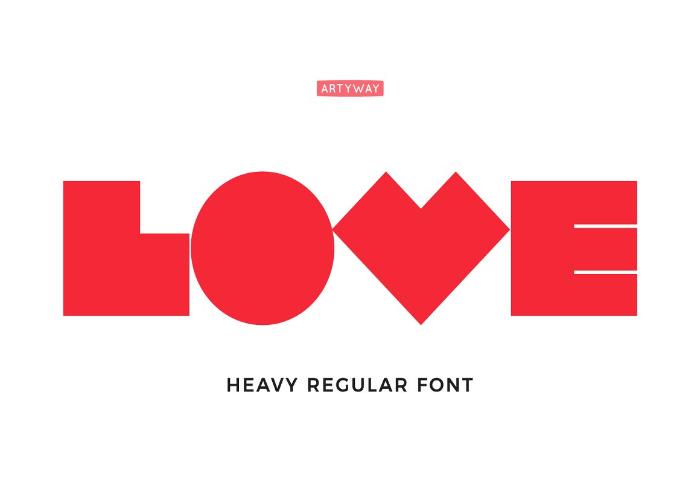
Free Robot Love Font
Robot Love Font is an extravagant font with a minimalistic style, maxi typography, and various creative illustrations, letterings, and logos. The Robot Love Font was inspired by a logo of the serial film “Love. Death. Robot.”, highly recommended to watch.
Experiment with Robot Love Fonts and create unique designs.